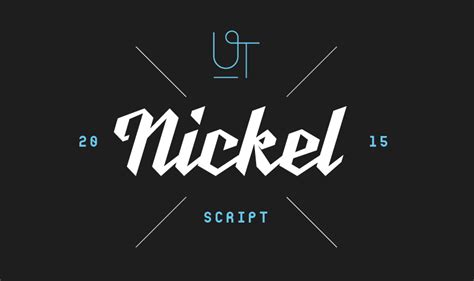
Ut Nickel Font
Ut Nickel Font - Web ut nickel is a geometric script font inspired by the milwaukee tool company logo. This complete typeface includes accents,. Web ut nickel 1.000 is a font designed by joan ramon pastor. This complete typeface includes accents,. You can see more designs by this author on the website:. Web ut nickel is a geometric script font inspired by the milwaukee tool company logo. Web ut nickel is a geometric script font inspired by the milwaukee tool company logo.
Web ut nickel 1.000 is a font designed by joan ramon pastor. You can see more designs by this author on the website:. This complete typeface includes accents,. Web ut nickel is a geometric script font inspired by the milwaukee tool company logo. This complete typeface includes accents,. Web ut nickel is a geometric script font inspired by the milwaukee tool company logo. Web ut nickel is a geometric script font inspired by the milwaukee tool company logo.
You can see more designs by this author on the website:. Web ut nickel is a geometric script font inspired by the milwaukee tool company logo. Web ut nickel is a geometric script font inspired by the milwaukee tool company logo. Web ut nickel 1.000 is a font designed by joan ramon pastor. This complete typeface includes accents,. Web ut nickel is a geometric script font inspired by the milwaukee tool company logo. This complete typeface includes accents,.
UT Nickel script on Behance
This complete typeface includes accents,. Web ut nickel is a geometric script font inspired by the milwaukee tool company logo. This complete typeface includes accents,. Web ut nickel 1.000 is a font designed by joan ramon pastor. You can see more designs by this author on the website:.
UT Nickel script on Behance
You can see more designs by this author on the website:. This complete typeface includes accents,. Web ut nickel 1.000 is a font designed by joan ramon pastor. This complete typeface includes accents,. Web ut nickel is a geometric script font inspired by the milwaukee tool company logo.
UT Nickel script on Behance
Web ut nickel 1.000 is a font designed by joan ramon pastor. Web ut nickel is a geometric script font inspired by the milwaukee tool company logo. This complete typeface includes accents,. Web ut nickel is a geometric script font inspired by the milwaukee tool company logo. This complete typeface includes accents,.
UT Nickel Typeface Font FreeDaFonts
Web ut nickel is a geometric script font inspired by the milwaukee tool company logo. This complete typeface includes accents,. Web ut nickel is a geometric script font inspired by the milwaukee tool company logo. This complete typeface includes accents,. Web ut nickel 1.000 is a font designed by joan ramon pastor.
UT Nickel script on Behance Calligraphy Letters, Typography Letters
Web ut nickel is a geometric script font inspired by the milwaukee tool company logo. Web ut nickel is a geometric script font inspired by the milwaukee tool company logo. Web ut nickel 1.000 is a font designed by joan ramon pastor. You can see more designs by this author on the website:. This complete typeface includes accents,.
UT Nickel Typeface Font FreeDaFonts
Web ut nickel is a geometric script font inspired by the milwaukee tool company logo. Web ut nickel 1.000 is a font designed by joan ramon pastor. Web ut nickel is a geometric script font inspired by the milwaukee tool company logo. Web ut nickel is a geometric script font inspired by the milwaukee tool company logo. You can see.
UT Nickel script on Behance Typography, Lettering fonts, Typography
This complete typeface includes accents,. You can see more designs by this author on the website:. Web ut nickel is a geometric script font inspired by the milwaukee tool company logo. Web ut nickel is a geometric script font inspired by the milwaukee tool company logo. Web ut nickel 1.000 is a font designed by joan ramon pastor.
UT Nickel script on Behance
Web ut nickel is a geometric script font inspired by the milwaukee tool company logo. This complete typeface includes accents,. Web ut nickel 1.000 is a font designed by joan ramon pastor. Web ut nickel is a geometric script font inspired by the milwaukee tool company logo. Web ut nickel is a geometric script font inspired by the milwaukee tool.
UT Nickel script on Behance
Web ut nickel 1.000 is a font designed by joan ramon pastor. Web ut nickel is a geometric script font inspired by the milwaukee tool company logo. This complete typeface includes accents,. You can see more designs by this author on the website:. This complete typeface includes accents,.
UT Nickel Typeface Font FreeDaFonts
Web ut nickel 1.000 is a font designed by joan ramon pastor. This complete typeface includes accents,. Web ut nickel is a geometric script font inspired by the milwaukee tool company logo. You can see more designs by this author on the website:.
This complete typeface includes accents,. Web ut nickel is a geometric script font inspired by the milwaukee tool company logo. This complete typeface includes accents,. Web ut nickel 1.000 is a font designed by joan ramon pastor.
Web Ut Nickel Is A Geometric Script Font Inspired By The Milwaukee Tool Company Logo.
Web ut nickel is a geometric script font inspired by the milwaukee tool company logo.